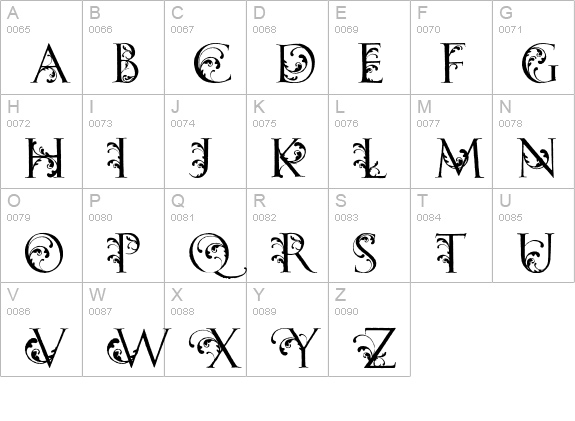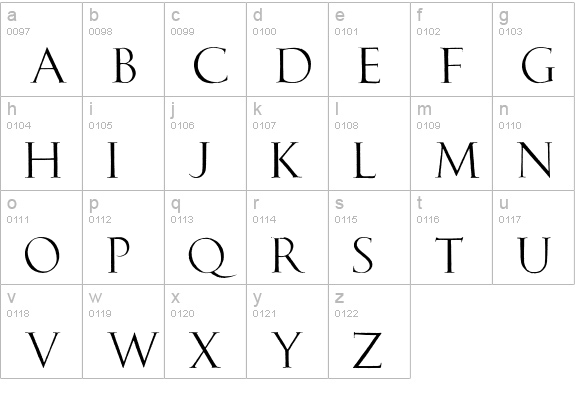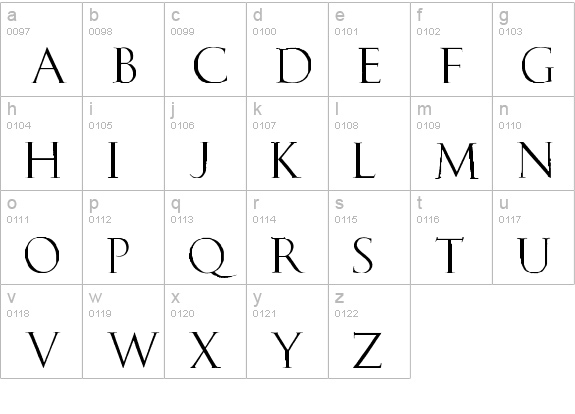
CARIBBEAN TOOL Font Details
Introducing CARIBBEAN TOOL, a captivating and versatile font that exudes the spirit of the vibrant Caribbean islands. This unique typeface is specifically crafted to add a touch of tropical charm to your creative projects. With its playful yet sophisticated design, CARIBBEAN TOOL is perfect for adding a touch of exotic flair to your designs, whether it be in advertisements, logos, invitations, or any other visual communication. One of the most remarkable aspects of CARIBBEAN TOOL is that it is freely available to download at FontsMarket.com. This means that you can easily access and utilize this stunning font without any cost. Its availability as a free download only adds to its allure, making it an ideal choice for designers, artists, and enthusiasts who are seeking to infuse their work with a touch of Caribbean inspiration. CARIBBEAN TOOL boasts a wide range of font weights and styles, allowing you to experiment and tailor your typography to suit your specific needs. From bold and eye-catching headlines to elegant and refined body text, this font offers a comprehensive selection that ensures versatility and flexibility in your design projects. With its distinct and captivating letterforms, CARIBBEAN TOOL effortlessly captures the essence of the Caribbean, evoking images of sandy beaches, crystal-clear waters, and a vibrant cultural tapestry. Its smooth curves and playful details lend a sense of energy and warmth, creating a visual experience that transports viewers to the idyllic paradise of the Caribbean. Whether you're designing for print or digital platforms, CARIBBEAN TOOL delivers exceptional legibility and readability, ensuring that your message is conveyed with clarity and impact. Its carefully crafted details and meticulous attention to spacing and kerning make this font a reliable and effective choice for both small and large-scale projects. Download CARIBBEAN TOOL today at FontsMarket.com and embark on a design journey that embraces the rich and diverse spirit of the Caribbean. With its free availability and captivating aesthetics, this font is a must-have for anyone looking to infuse their work with a touch of tropical allure. Let CARIBBEAN TOOL be your creative companion as you bring the warmth and vibrancy of the Caribbean to your designs.